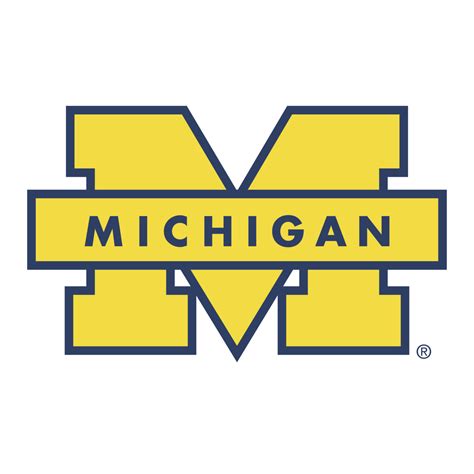
Michigan Wolverines Logo Font: A Comprehensive Guide
Let’s dive deep into the Michigan Wolverines logo font , a topic that captures the essence of this iconic university’s brand identity. Guys, you know how crucial a font is to a logo, right? It’s not just about slapping any old typeface on a design; it’s about embodying the spirit, tradition, and values of the institution it represents. In the case of the Michigan Wolverines, their font choice speaks volumes about their athletic prowess, academic excellence, and rich history. The font used in the Michigan Wolverines logo is custom-designed, meaning it wasn’t just picked off the shelf. It was created specifically to represent the university’s brand. This unique font embodies the strength, tradition, and prestige associated with the Wolverines.
When we talk about the Michigan Wolverines logo font , we’re essentially discussing a visual cornerstone of the university’s branding. The athletic teams, academic departments, and various university-affiliated organizations all utilize this font in their respective branding materials. This consistency helps create a cohesive and recognizable image for the university as a whole. Think about it: when you see that specific typeface, you immediately associate it with the Wolverines. That’s the power of a well-chosen and consistently used font. Fonts are more than just letters; they evoke feelings and create a sense of belonging. The Michigan Wolverines font is a symbol of pride and unity for students, alumni, and fans alike. The university’s marketing and communications teams work diligently to maintain brand standards, ensuring that the font is used correctly across all platforms. This includes everything from official documents and websites to merchandise and advertising campaigns. This careful attention to detail helps protect the integrity of the university’s brand and reinforces its image as a top-tier institution. Understanding the nuances of typography and its impact on brand perception is crucial for anyone involved in marketing, design, or communications. The Michigan Wolverines logo font serves as an excellent example of how a custom-designed typeface can become an integral part of a brand’s identity. So, next time you see the Michigan Wolverines logo, take a moment to appreciate the font – it’s more than just letters; it’s a symbol of tradition, excellence, and unwavering spirit.
History and Evolution
The history and evolution of the Michigan Wolverines logo font is quite fascinating, reflecting the changing times and the university’s growth. It’s not just a static element; it has undergone subtle refinements over the years to maintain its relevance and impact. Early versions of the logo featured different fonts, reflecting the design trends of the time. As the university’s brand matured, there was a need for a more distinctive and consistent visual identity. This led to the development of the custom font we recognize today. Imagine the discussions and design iterations that went into creating the perfect typeface to represent the Wolverines! It’s a testament to the importance of branding and the commitment to creating a unique and memorable image. The evolution of the font also reflects the university’s adaptation to new media and technologies. From print materials to digital platforms, the font has been carefully optimized to ensure readability and visual appeal across all formats. This requires a deep understanding of typography and its technical considerations. The university’s design team constantly monitors the font’s usage and makes adjustments as needed to maintain its integrity and consistency. They also work to protect the font from unauthorized use, ensuring that it remains a symbol of the university’s official brand. The history of the Michigan Wolverines logo font is a story of continuous improvement and adaptation. It’s a reflection of the university’s commitment to excellence and its desire to create a strong and recognizable brand identity. So, when you see the Wolverines logo, remember that it’s not just a static image; it’s the result of years of careful planning, design, and evolution. The font plays a crucial role in conveying the university’s values and traditions, and it will continue to evolve as the university grows and adapts to the future. The dedication to maintaining a strong and consistent brand identity is a key factor in the university’s success and recognition on a national and international level. This commitment to excellence extends to every aspect of the university, from academics to athletics, and the logo font is a visual representation of this unwavering pursuit of perfection.
Key Characteristics and Design Elements
The key characteristics and design elements of the Michigan Wolverines logo font are what make it so distinctive and memorable. It’s not just the individual letters themselves, but also the overall aesthetic and how it contributes to the university’s brand identity. The font is characterized by its strong, bold lines and its subtle serifs, which give it a sense of tradition and authority. The letterforms are carefully crafted to convey a sense of strength and confidence, reflecting the athletic prowess of the Wolverines teams. The font also incorporates subtle details that are unique to the university’s brand. These details may not be immediately noticeable, but they contribute to the overall distinctiveness of the font. The design team has carefully considered the spacing between letters and the overall balance of the typeface to ensure readability and visual appeal. The font is designed to work well in a variety of sizes and contexts, from large headlines to small body text. This versatility is essential for ensuring that the font can be used effectively across all of the university’s branding materials. The color palette associated with the font is also an important consideration. The university’s official colors, maize and blue, are often used in conjunction with the font to create a cohesive and recognizable brand identity. The combination of the font and the colors evokes a sense of tradition, pride, and excellence. The design elements of the Michigan Wolverines logo font are not accidental; they are the result of careful planning and execution. The university’s design team has a deep understanding of typography and its impact on brand perception. They work diligently to maintain the integrity of the font and ensure that it is used correctly across all platforms. This attention to detail is what makes the Michigan Wolverines logo font so effective in conveying the university’s values and traditions. The font is a visual representation of the university’s commitment to excellence, and it will continue to play a crucial role in shaping the university’s brand identity for years to come.
Usage Guidelines and Brand Standards
Understanding the usage guidelines and brand standards for the Michigan Wolverines logo font is essential for anyone creating materials on behalf of the university. These guidelines ensure consistency and protect the integrity of the university’s brand. The university has specific rules about how the font can be used, including its size, color, and placement. These rules are outlined in the university’s brand guidelines, which are available to anyone who needs them. It’s important to adhere to these guidelines to maintain a consistent brand image. Using the font incorrectly can dilute the brand and create confusion. The university’s marketing and communications teams are responsible for enforcing these guidelines and ensuring that everyone is using the font correctly. This includes monitoring the use of the font on websites, social media, and print materials. The university also has strict rules about modifying the font. In most cases, it is not permitted to alter the font in any way. This is to prevent distortions and maintain the integrity of the typeface. There are also guidelines about using the font in conjunction with other design elements, such as the university’s logo and colors. These guidelines ensure that all of the elements work together harmoniously to create a cohesive brand identity. The university’s brand standards are constantly evolving to reflect changes in design trends and technology. The marketing and communications teams regularly update the guidelines to ensure that they are relevant and effective. It’s important to stay up-to-date on the latest guidelines to ensure that you are using the font correctly. The university also provides resources and training to help people understand and implement the brand standards. This includes workshops, online tutorials, and one-on-one consultations. By following the usage guidelines and brand standards, you can help protect the integrity of the Michigan Wolverines brand and ensure that it is represented consistently across all platforms. This is essential for maintaining the university’s reputation and its position as a leading institution of higher education. The font is a valuable asset, and it’s important to use it responsibly and in accordance with the university’s guidelines. This will help ensure that the Michigan Wolverines brand continues to be strong and recognizable for years to come.
Impact and Recognition
The impact and recognition of the Michigan Wolverines logo font extend far beyond the university campus. It has become a symbol of excellence, tradition, and athletic achievement, recognized by people all over the world. When you see the font, you immediately associate it with the University of Michigan and its storied history. The font has been featured on countless merchandise items, from t-shirts and hats to mugs and keychains. It’s a popular choice for fans who want to show their support for the Wolverines. The font has also been used in advertising campaigns and promotional materials, helping to raise the university’s profile and attract new students and faculty. Its distinctive design makes it instantly recognizable, even in crowded and visually cluttered environments. The font’s impact is also evident in the way it has been adopted by other organizations and institutions. Many schools and sports teams have been inspired by the Michigan Wolverines logo font and have incorporated similar design elements into their own branding. This is a testament to the font’s effectiveness and its enduring appeal. The font has also been praised by designers and typographers for its craftsmanship and its contribution to the field of visual communication. It’s a well-designed and thoughtfully executed typeface that effectively conveys the university’s values and traditions. The font’s recognition is further enhanced by the university’s strong presence on social media and other digital platforms. The font is consistently used in online content, helping to reinforce the university’s brand identity and reach a wider audience. The impact and recognition of the Michigan Wolverines logo font are a result of years of consistent use and careful brand management. The university has invested heavily in its brand identity, and the font is a key component of that strategy. The font is a valuable asset that helps to differentiate the university from its competitors and attract the best and brightest students and faculty. Its enduring appeal and widespread recognition are a testament to its effectiveness as a symbol of excellence and tradition.
In conclusion, the Michigan Wolverines logo font is more than just a typeface; it’s a symbol of the university’s rich history, tradition, and commitment to excellence. From its carefully crafted design elements to its consistent usage across all platforms, the font plays a crucial role in shaping the university’s brand identity and conveying its values to the world. Understanding the history, characteristics, and usage guidelines of the font is essential for anyone who wants to represent the University of Michigan in a consistent and effective manner. So, next time you see the Michigan Wolverines logo, take a moment to appreciate the font – it’s a powerful symbol of tradition, pride, and unwavering spirit.